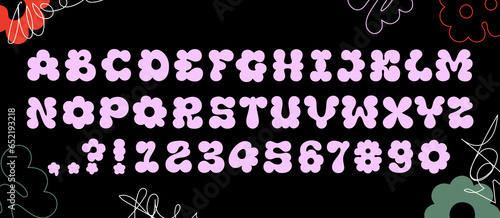
Retro font in 90s and Y2K aesthetics with bold, puffy English letters and numbers. Vector flower bloom shaped alphabet suitable for Y2K designs and children's projects